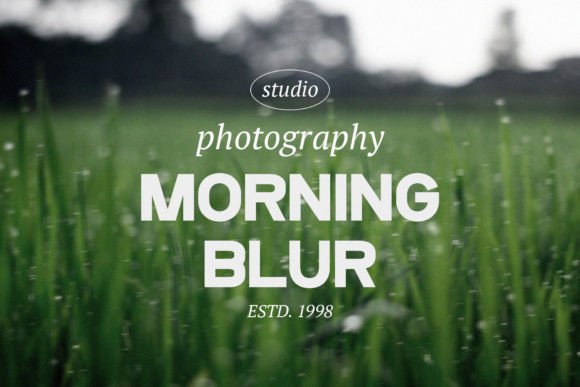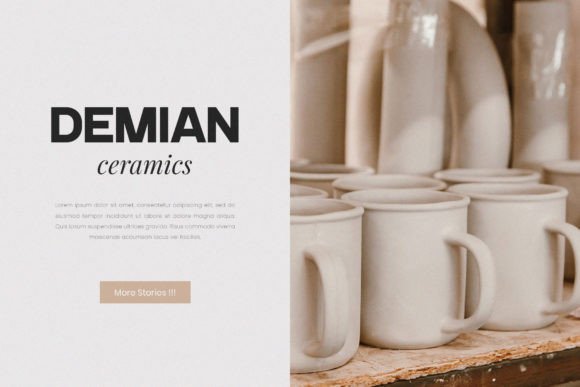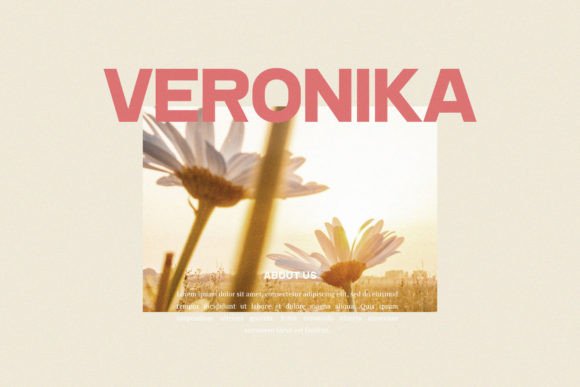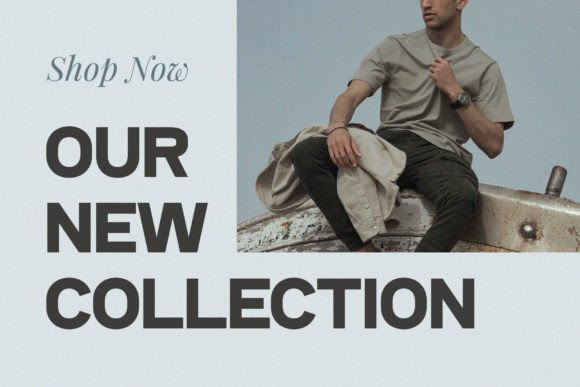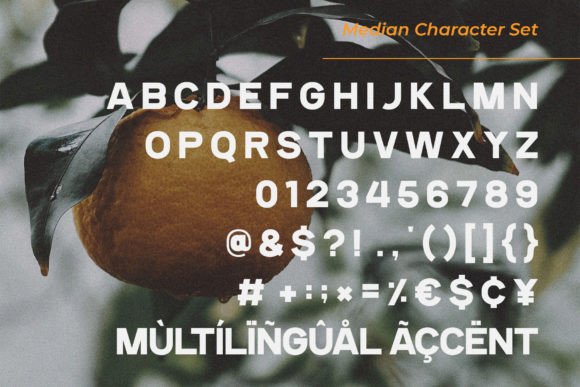
Introduction to Median Font
Median is a modern and classy sans serif typeface, best used as a display for headings, logos, branding, magazines, product packaging, and invitations.
Median comes with clean lines and smooth curves, giving any project an extra touch of class .
Key Features of Median Font